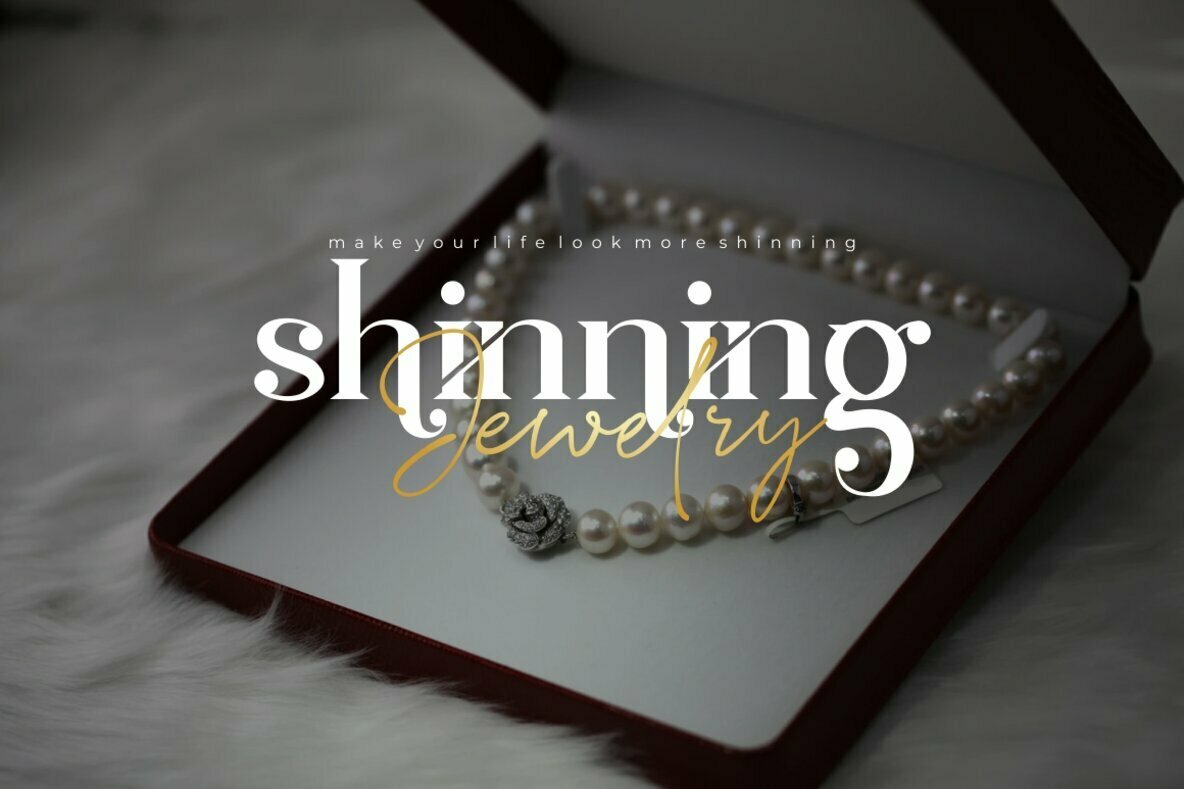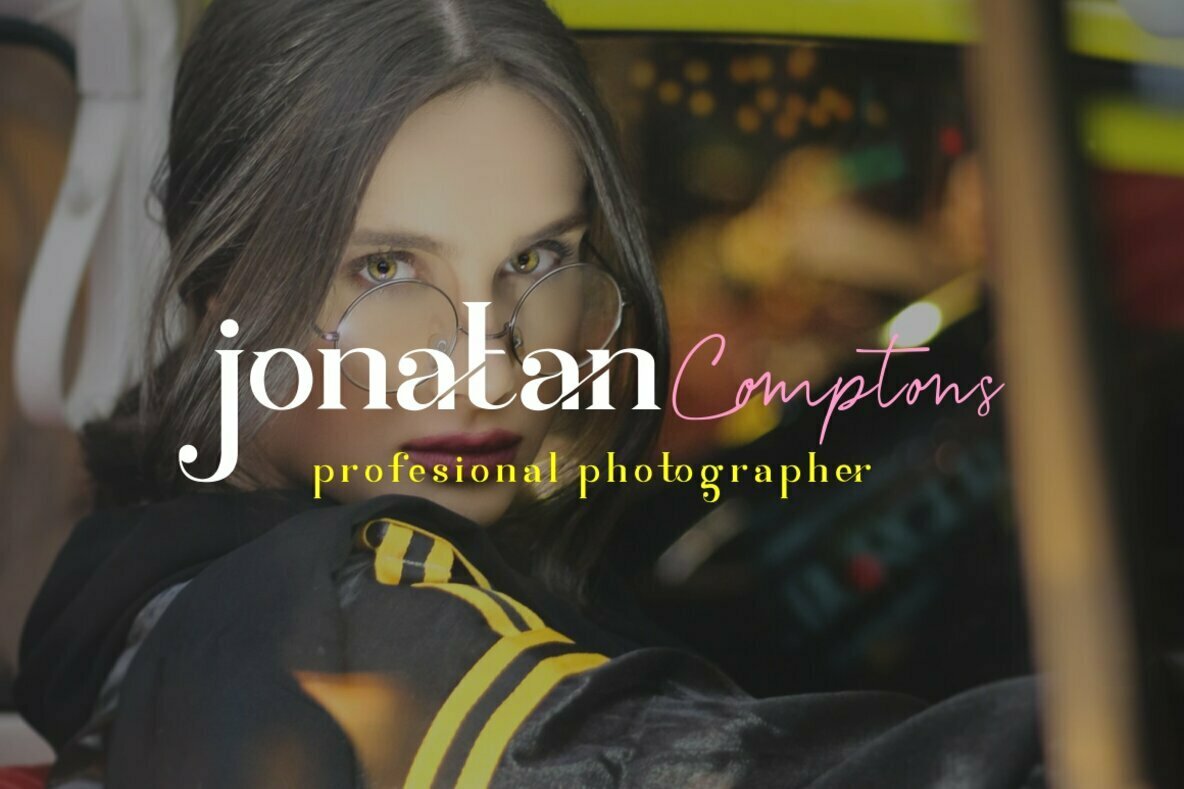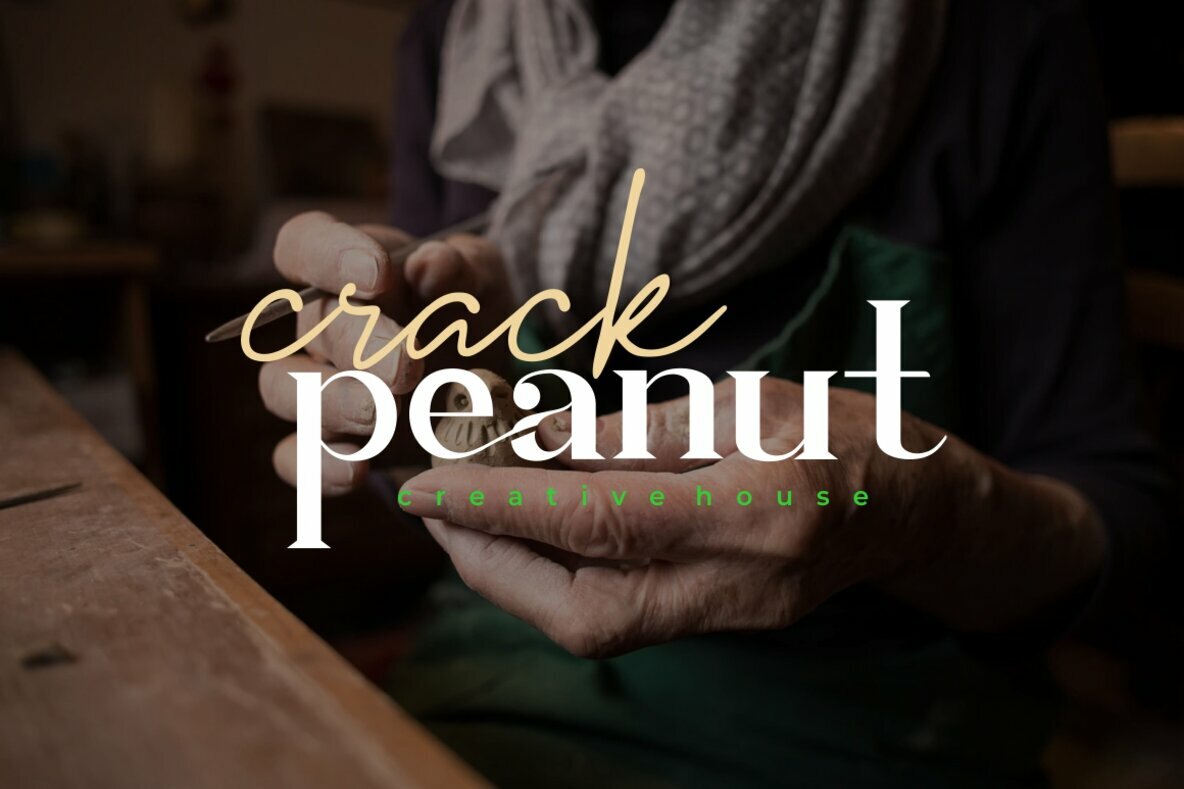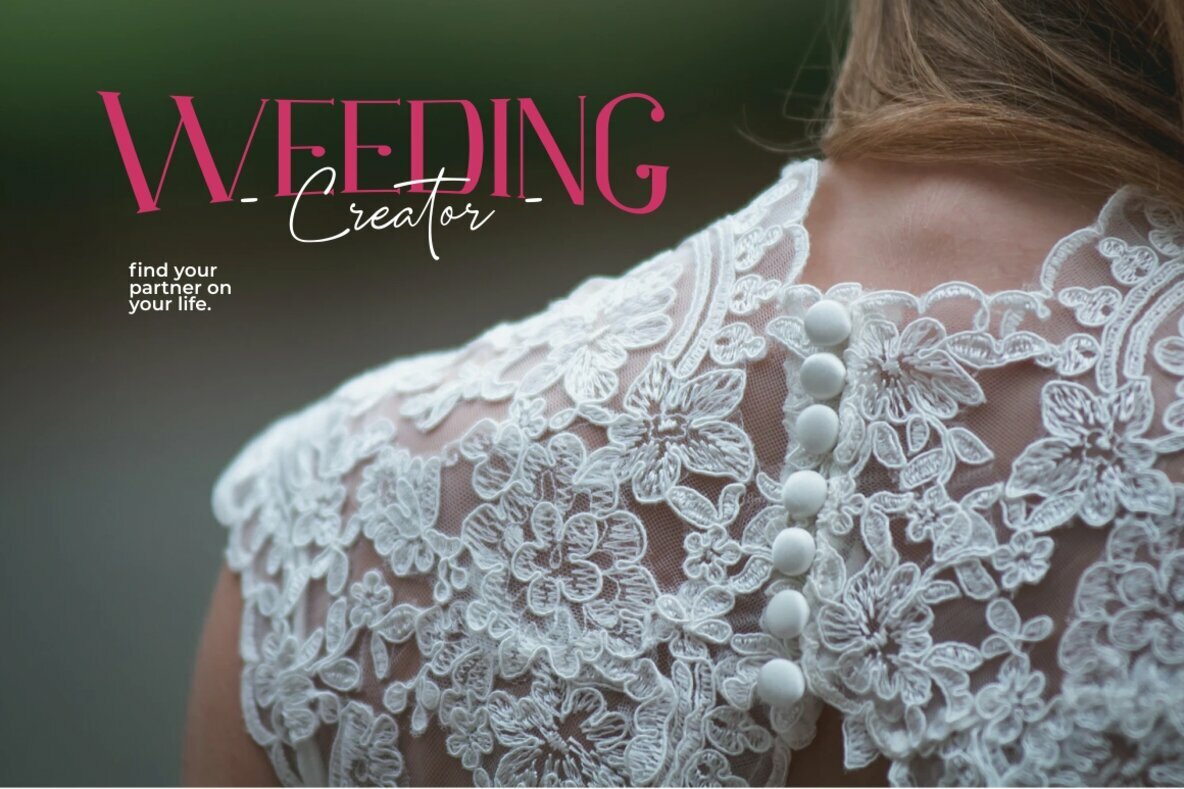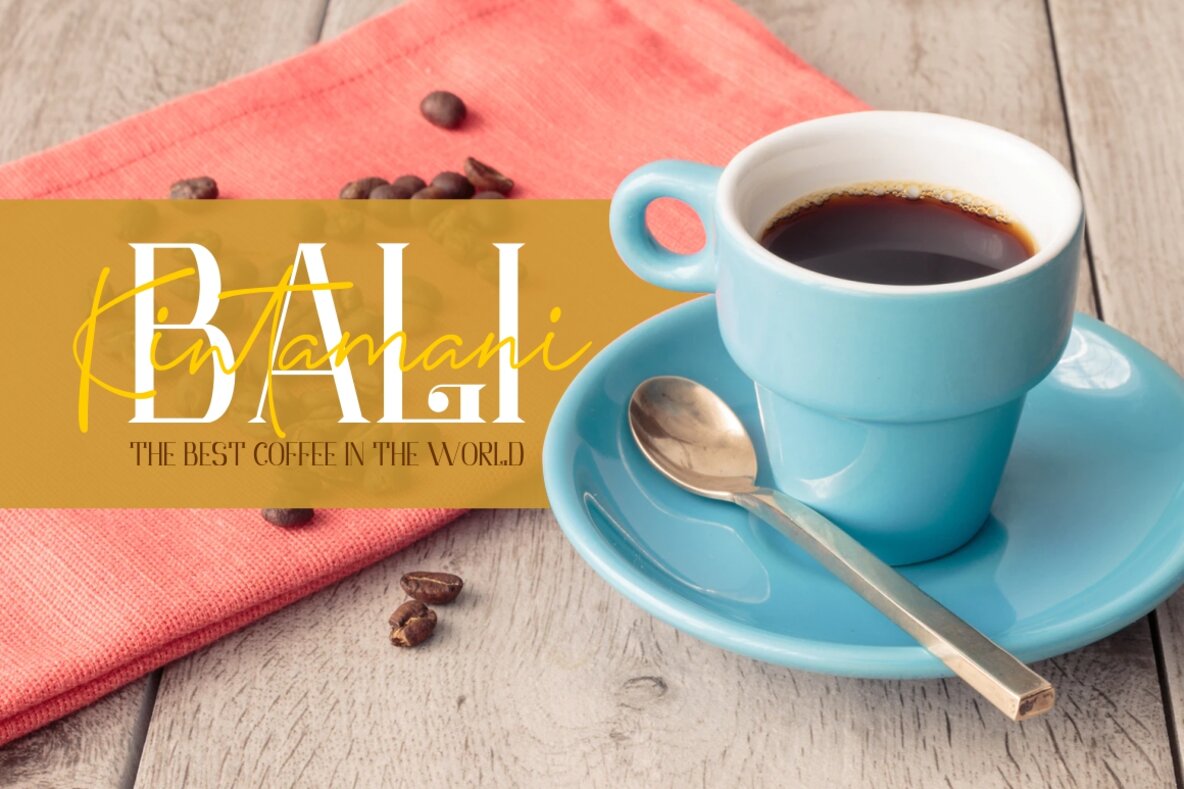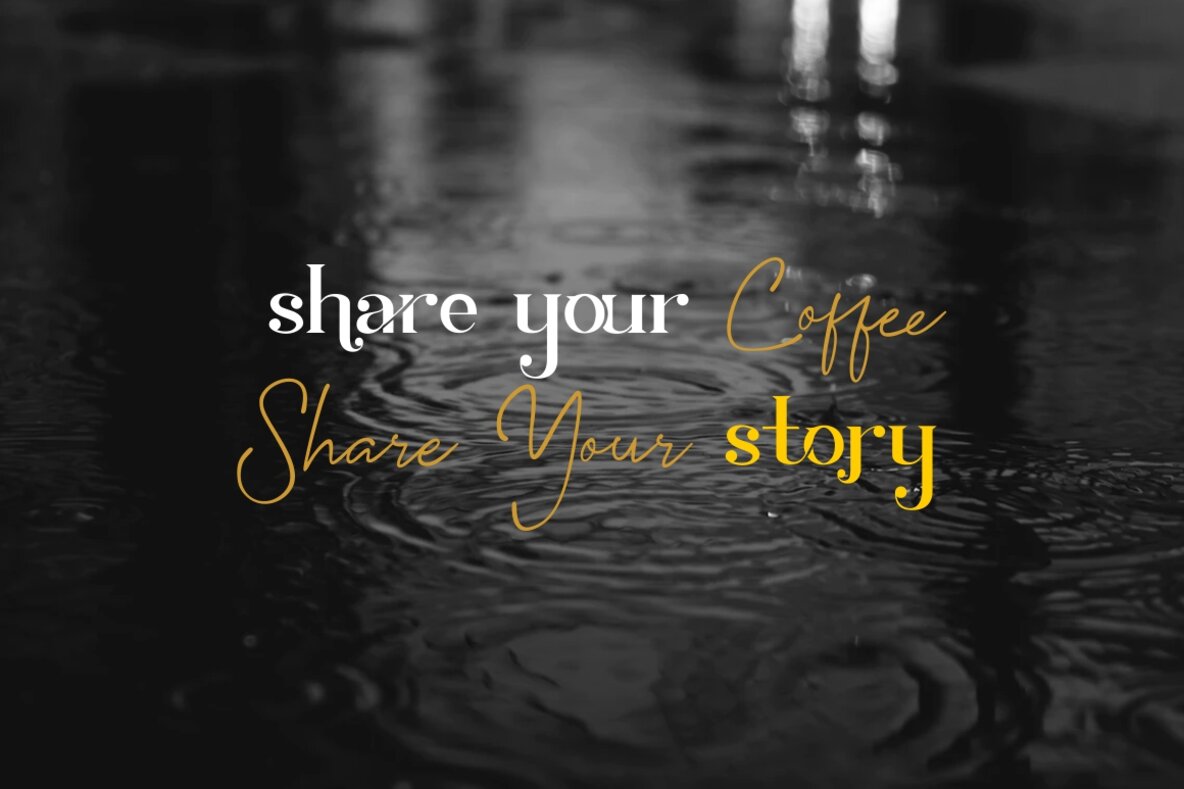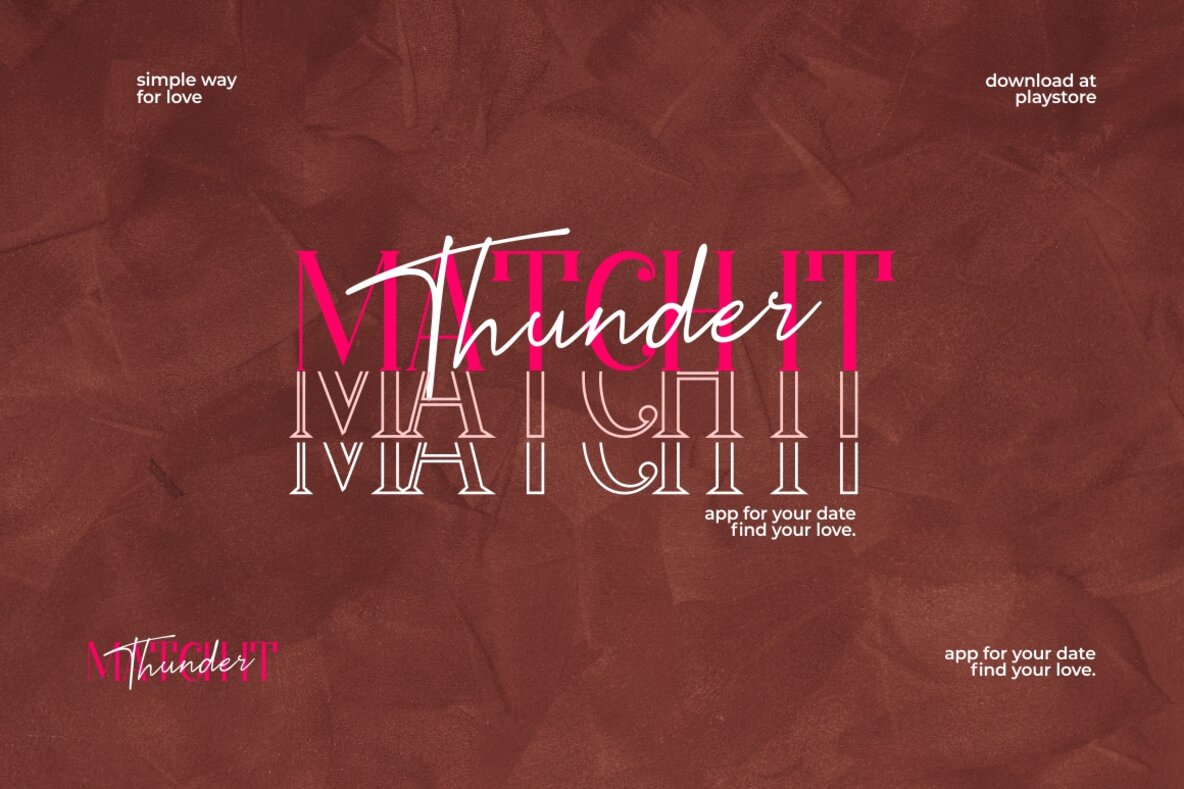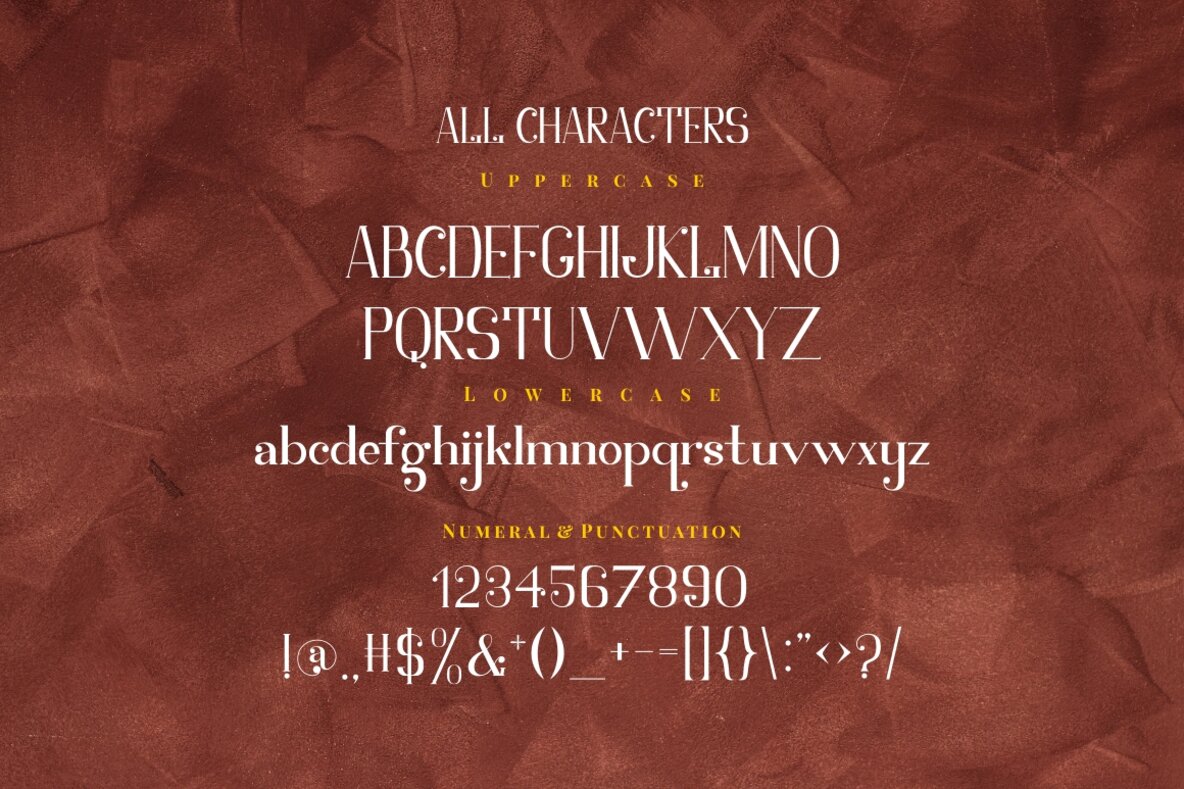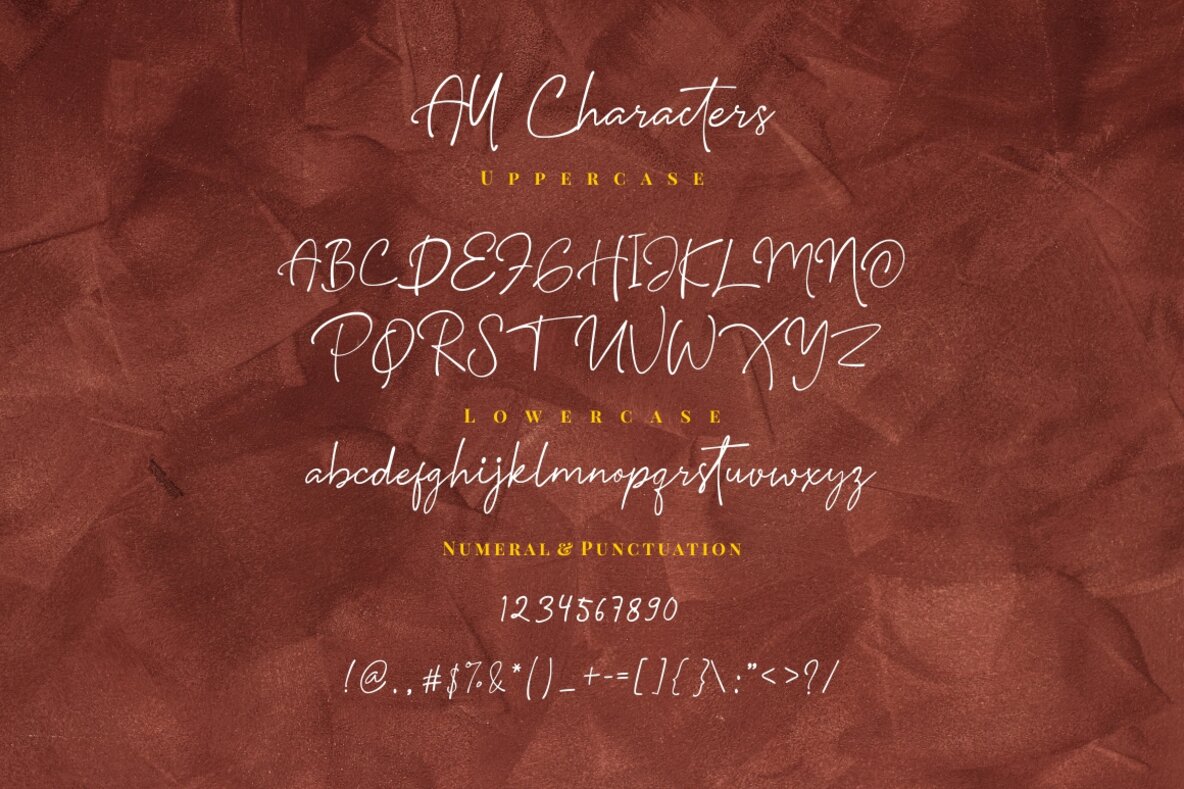
Safiar Font Duo
Safiar Sans
Safiar Signature
Crafted for the discerning designer, the Safiar Font Duo embodies luxury and versatility in equal measure. This perfect pairing of a modern sans serif and a signature typeface is impeccably designed to complement each other, harmonizing seamlessly across a myriad of applications. Whether you're crafting a standout logo, refining stationery, or designing an elegant book cover, Safiar provides the sophistication required to leave a lasting impression. Features: Whether your design calls for the warmth of a signature font or the clarity of sans serif, Safiar combines modernity with timeless elegance, transforming ordinary projects into extraordinary works of art.Safiar Font Duo: Effortlessly Elegant